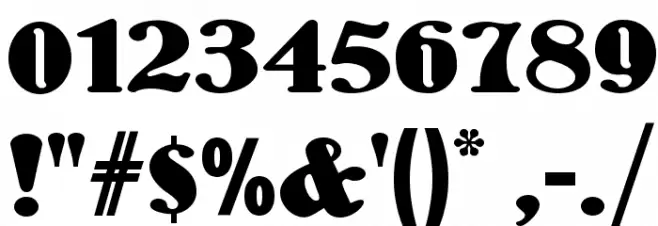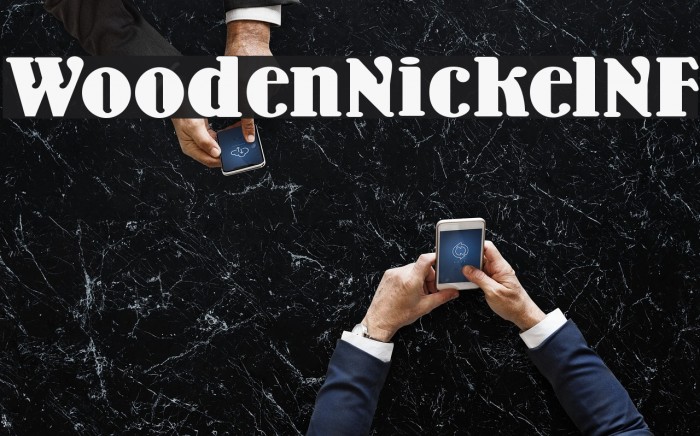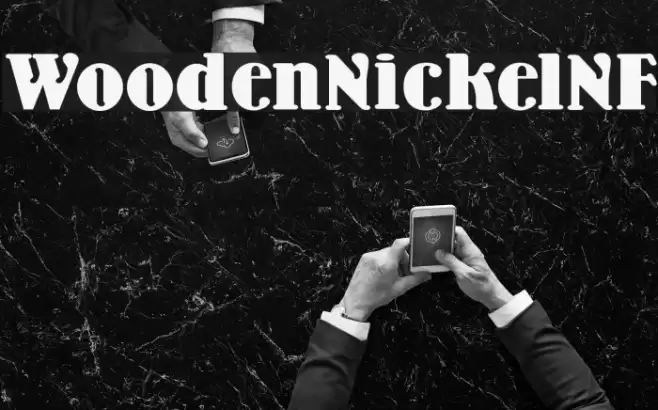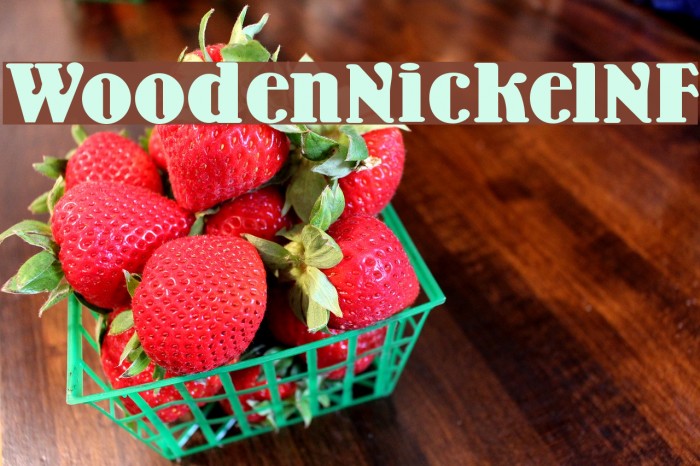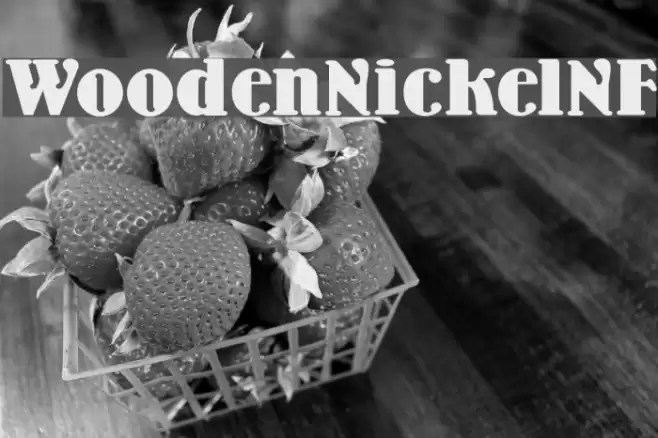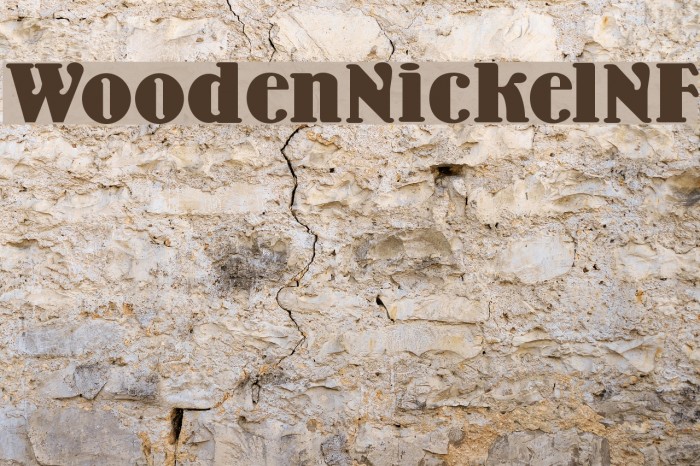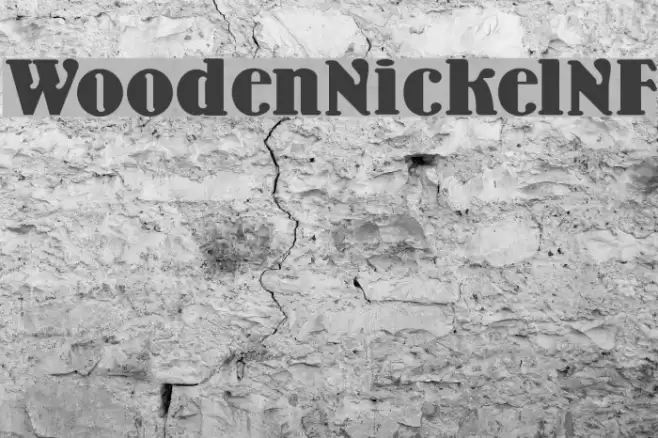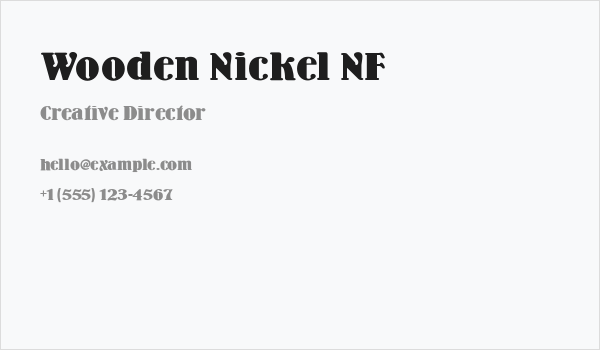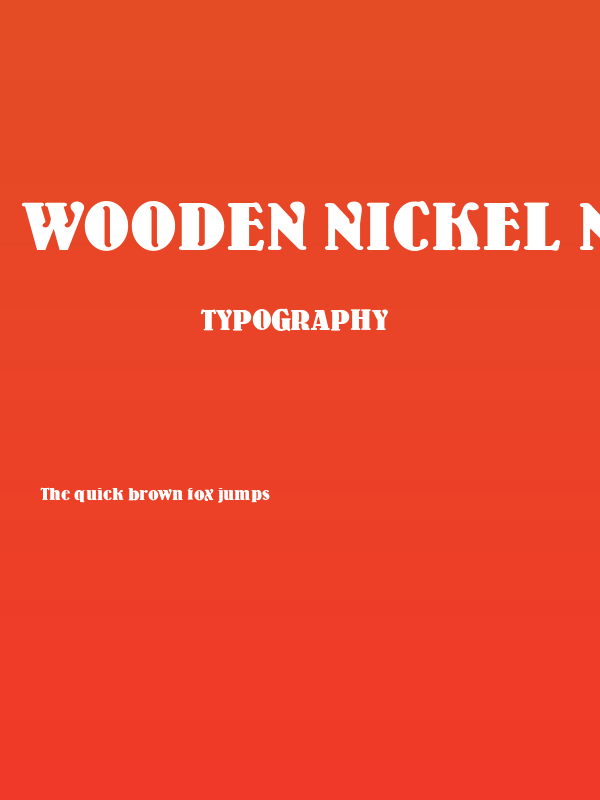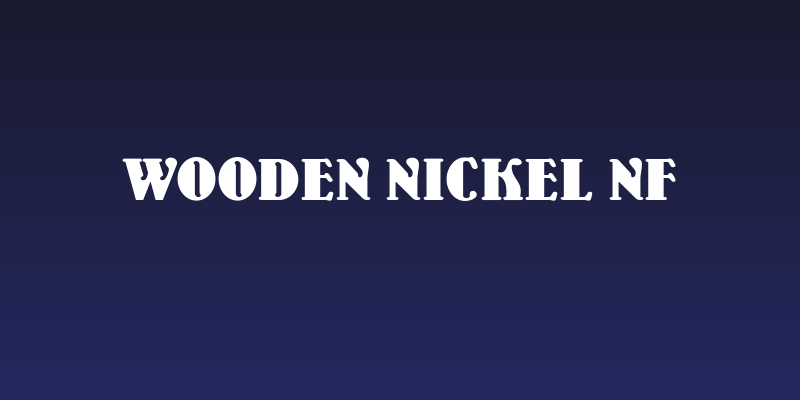
Wooden Nickel NF Font
Wooden Nickel NF Description
This font features a bold and robust design with a strong presence, characterized by thick, block-like serifs and a slightly condensed structure. The uppercase letters are particularly striking, with unique flourishes on certain characters like 'Q' and 'R', adding a touch of vintage flair. The lowercase letters maintain a consistent weight and style, providing a harmonious balance with the uppercase. Numbers are equally bold, ensuring readability and impact. Special characters are well-integrated, maintaining the overall aesthetic. The font's boldness and decorative elements make it ideal for attention-grabbing headlines and designs that require a vintage or retro feel.
| Width | Condensed |
| Overall Style | Vintage |
| Proposed Projects | Ideal for vintage-themed posters, branding, packaging, and headlines that require a bold statement. |